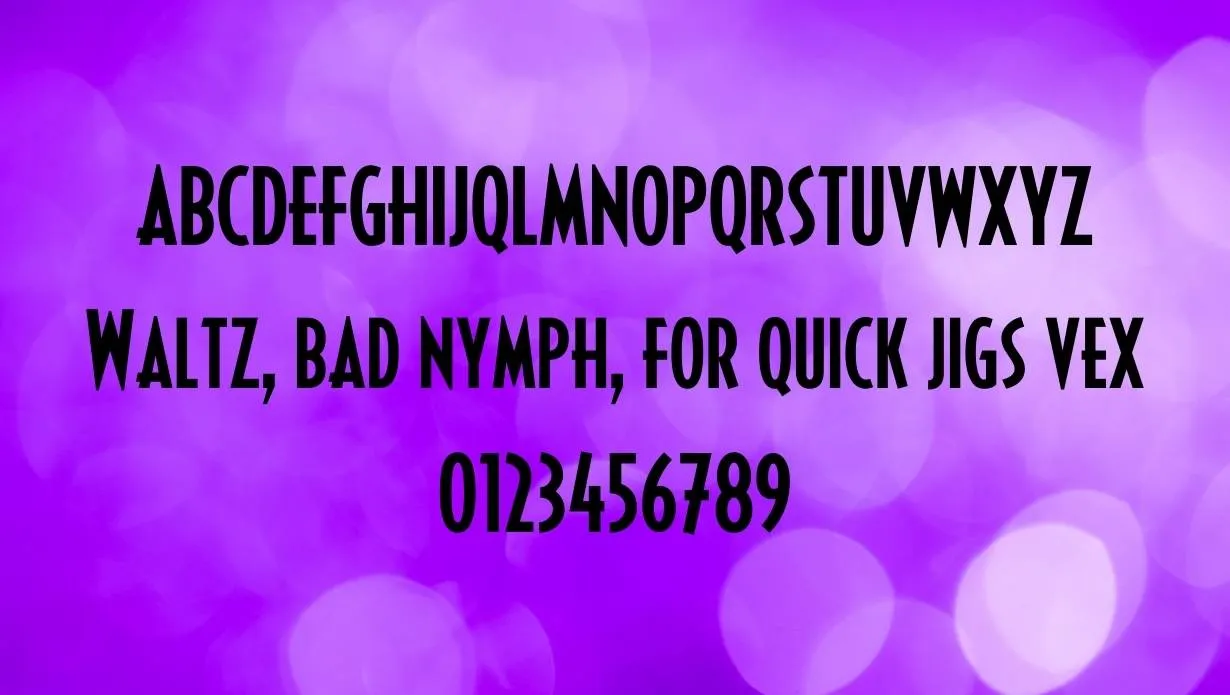
We have to introduce one more classy and popular typeface named Black Panther Font. This font is a sans serif typeface. The reason for its popularity is its graphics and actions. This font is used for designing logos of various types. Another font that has the same font is named Rift Font.
It is usually used for designing logos, posters, and brochures. Different companies used this font family according to their work need. This Font family is available in different styles. This Font is most suitable for shorts and long paragraphs.
Black Panther Font Family